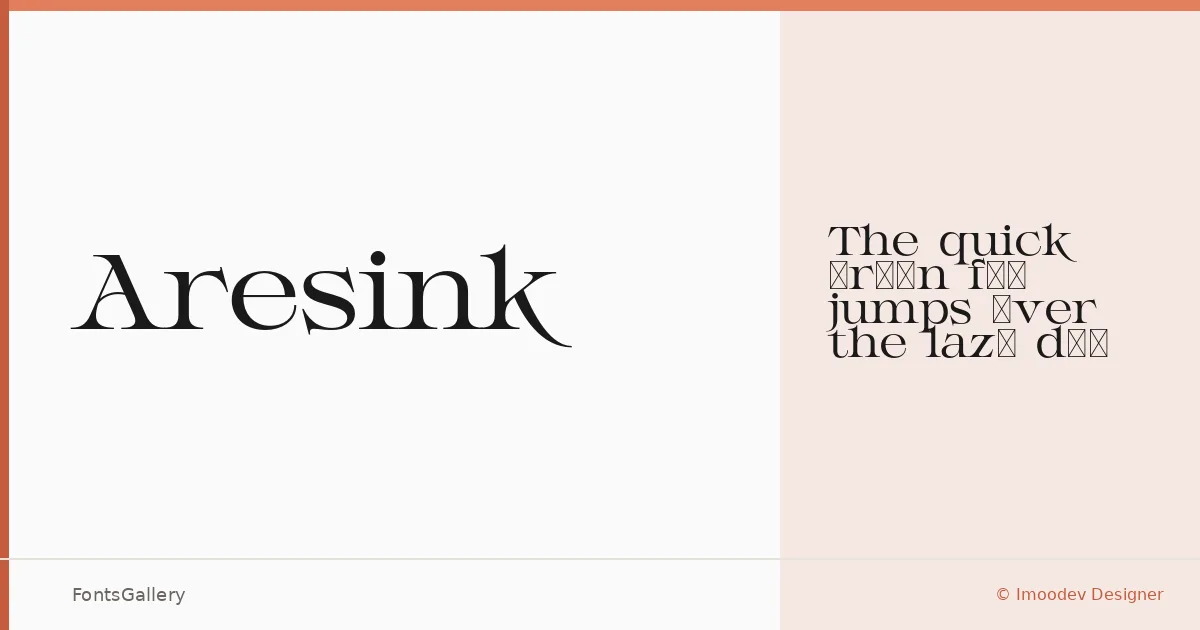
About Aresink Font
There is a composed confidence to these serifs — the kind that comes from letterforms that know exactly how much weight to carry and where to let go. Aresink is a serif typeface designed by Imoodev Designer, available as a single Regular cut in OTF format.
The mood sits at the intersection of classic structure and modern restraint, lending itself naturally to work that needs to feel both elegant and current. The serifs are crisp rather than ornate, giving the Regular weight a luxury sensibility without tipping into period pastiche. As a single-style family, its character is concentrated — every decision in the design has to carry the whole.
It reads well at display sizes, making it a strong candidate for book covers, magazine headers, logo lockups, and branding systems that need a typographic anchor with genuine presence. For body copy or supporting text, it pairs with clean, neutral companions — Helvetica being the most grounding of the named options, while Ballmain, Alexandria, Batoshi, and Audex each offer a more expressive contrast depending on the register of the project.